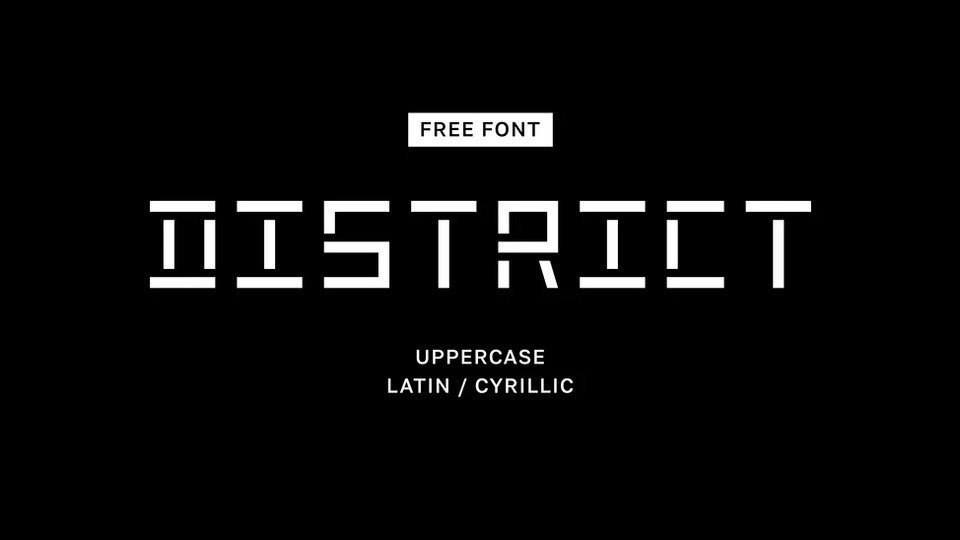
Download District font, a display typeface inspired by the quarters of major metropolitan areas. District font is suitable for large headlines, but not suitable for small text.
Designer: Alen Yamukov